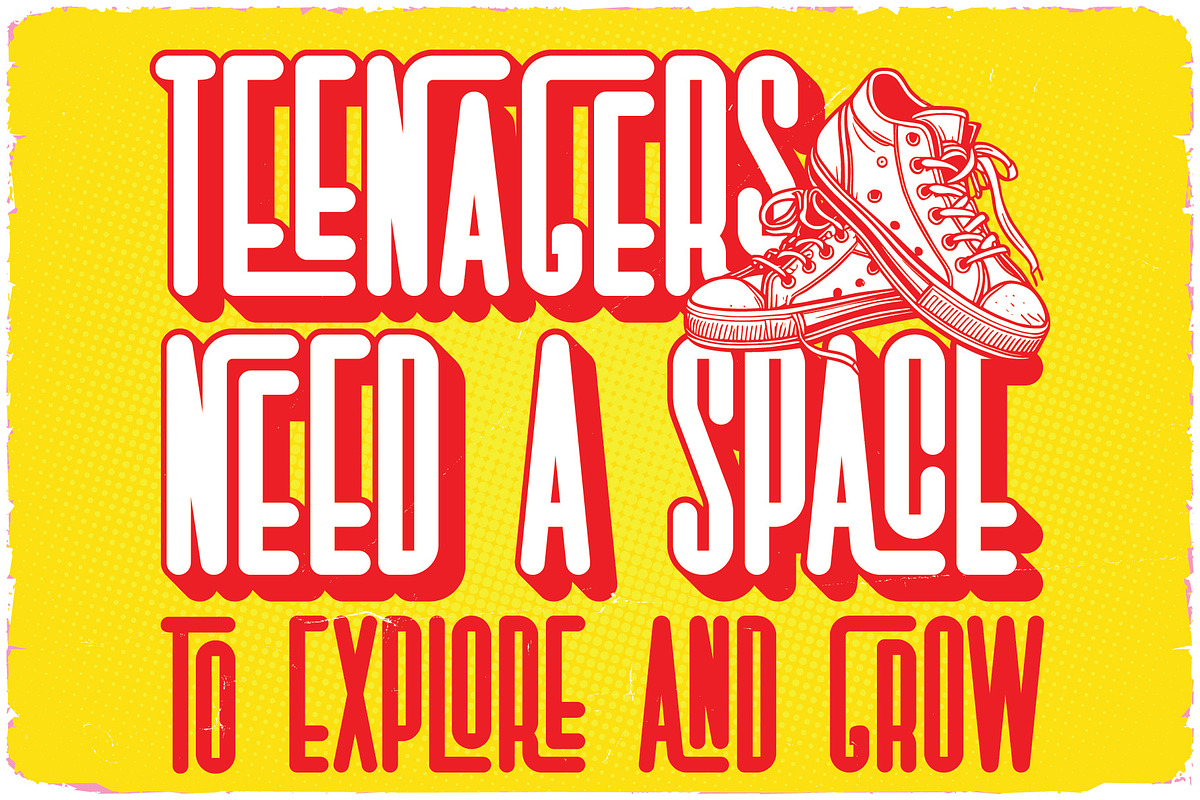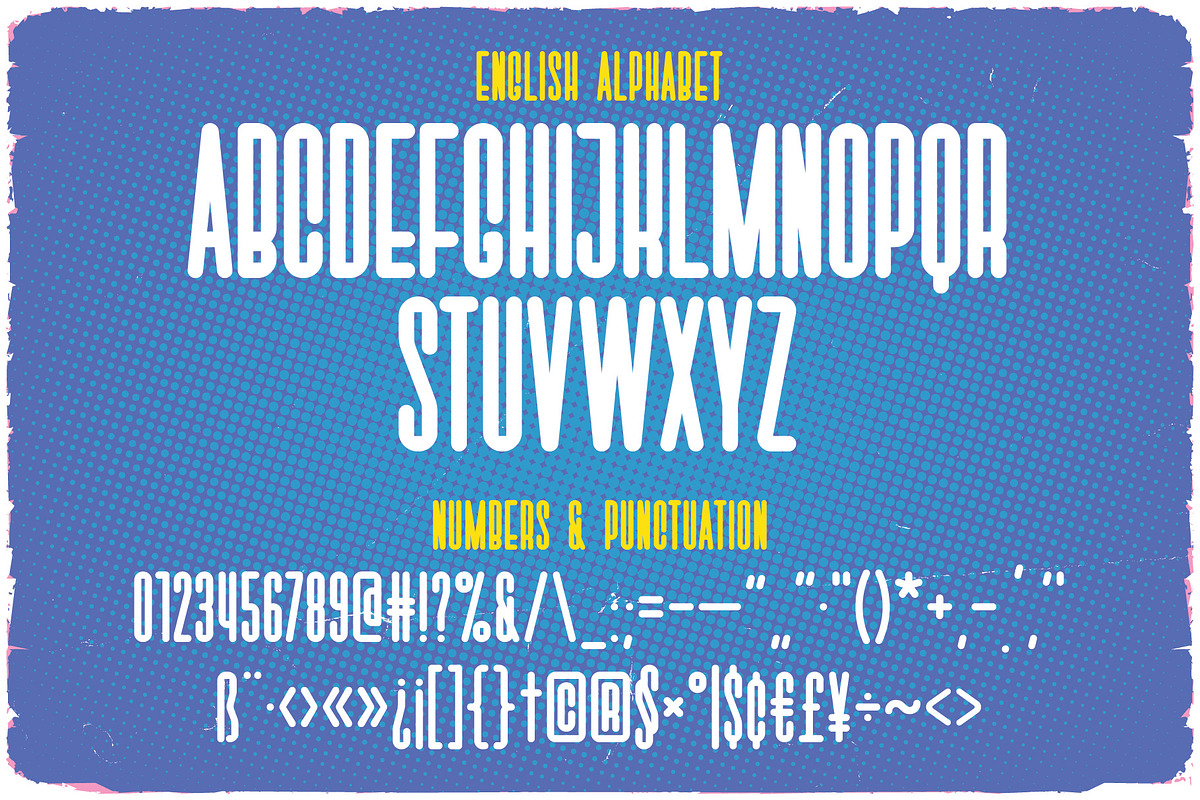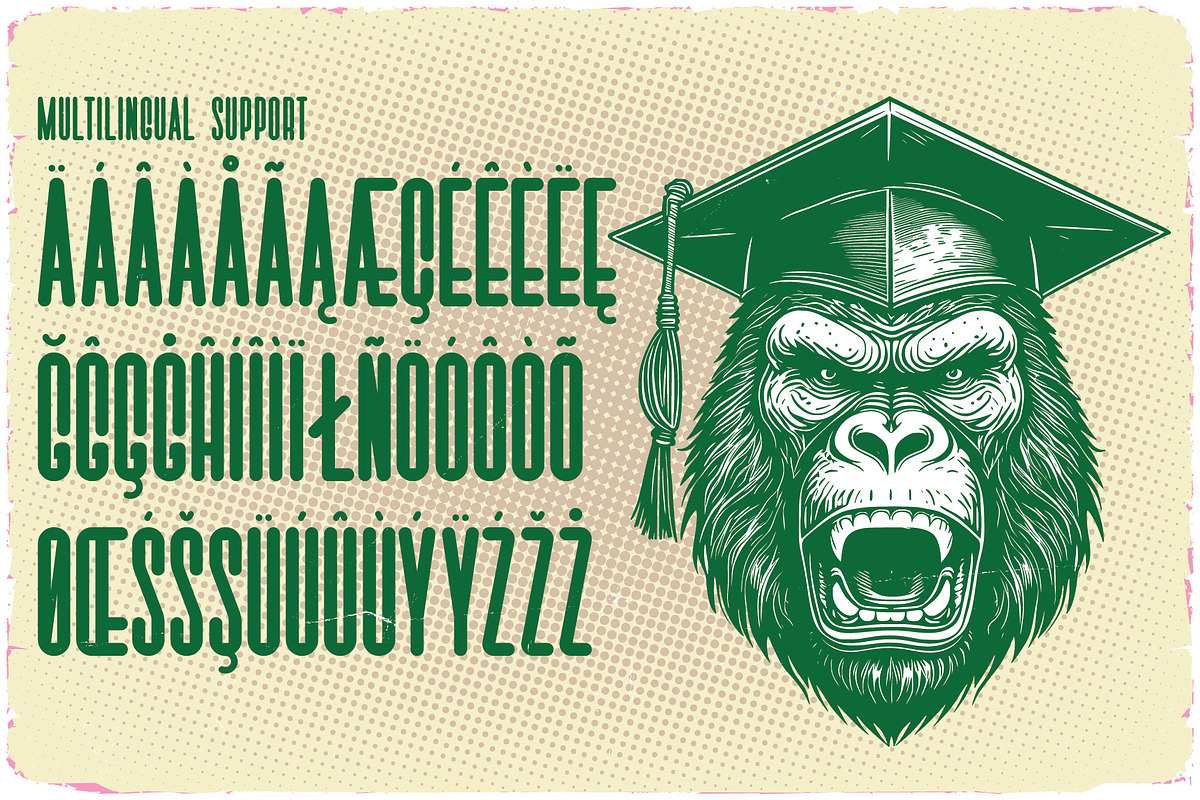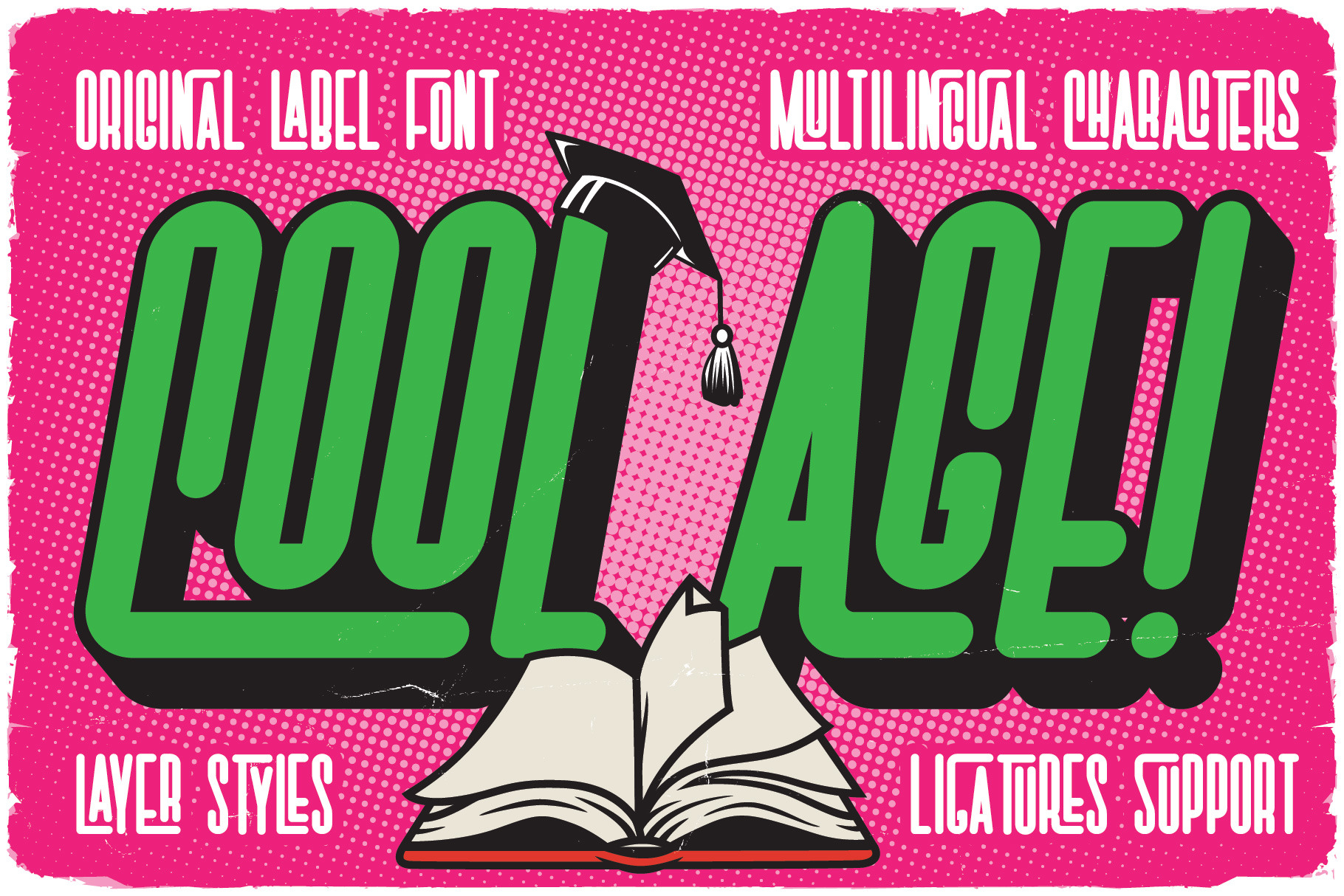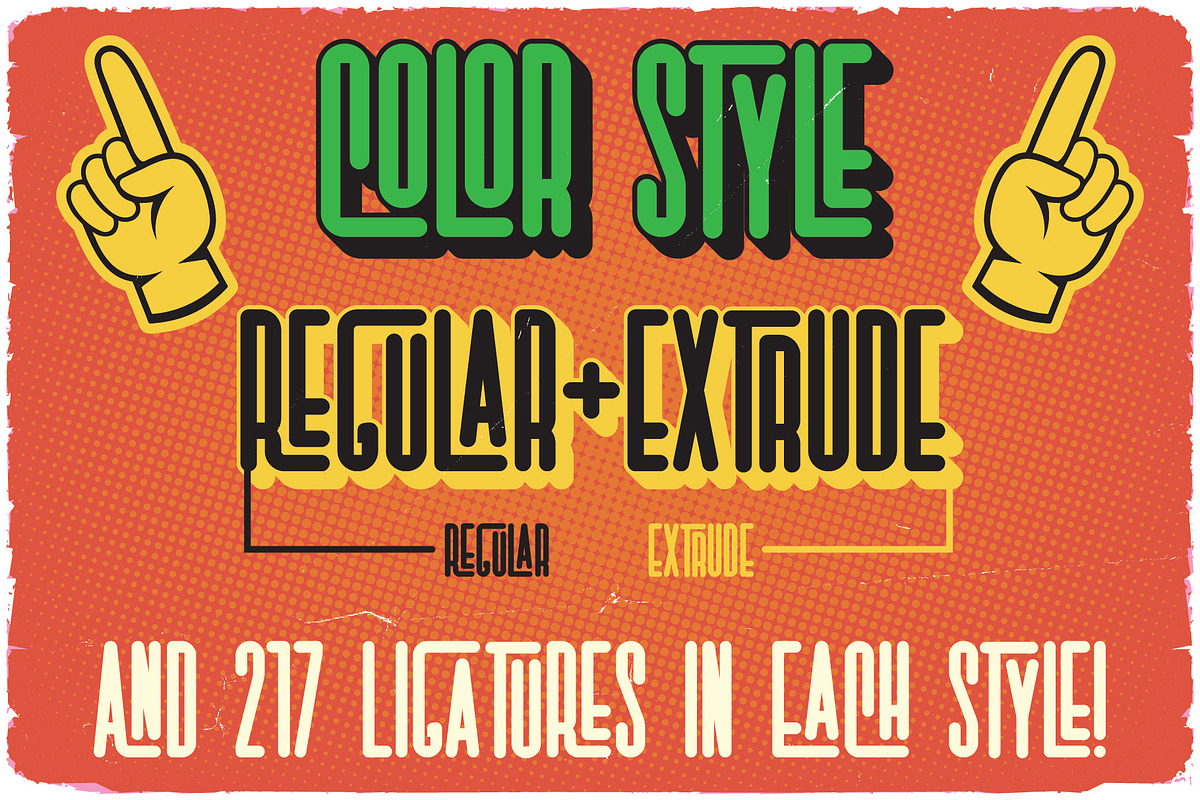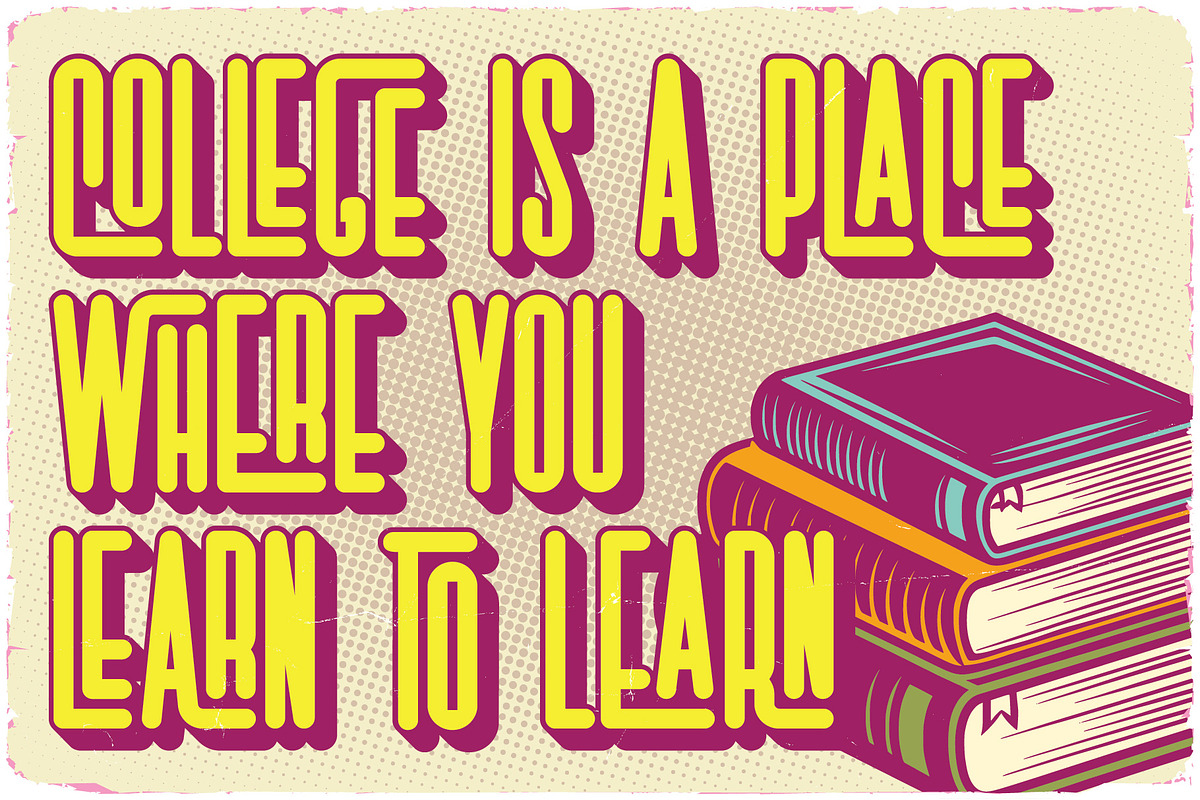
Cool Age Ligature Label Font
Unique, clean, condensed, rounded, ligature, monogram & label sans serif font. Comes with multilingual support & ligatures - great for your new logo, monogram or branding project.
- Multilingual support & ligatures
- Great for your new logo, monogram or branding project